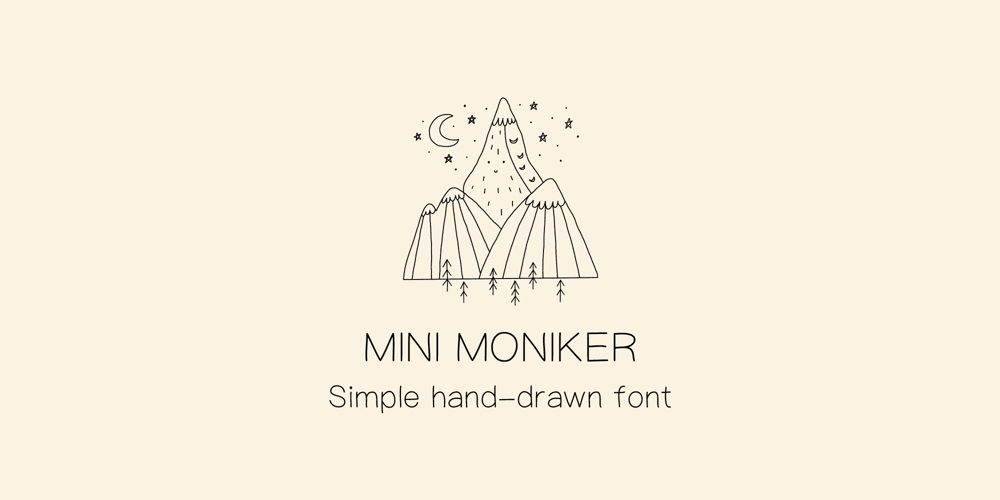
Mini Moniker Font Family was designed by Anna Drozdova and published by AnkaDrozd. Mini Moniker contains 1 styles and family package options. Mini Moniker Simple FontElevate your design simplicity with Mini Moniker, a digital font that embodies the essence of minimalism. Perfectly curated for short phrases and print design, this font brings a clean and understated style to your creative projects. Each letter is a testament to the beauty found in simplicity, making Mini Moniker the ideal choice for those seeking a sleek and modern aesthetic. Enhance your visual language with this versatile font and let your words speak with clarity and elegance.